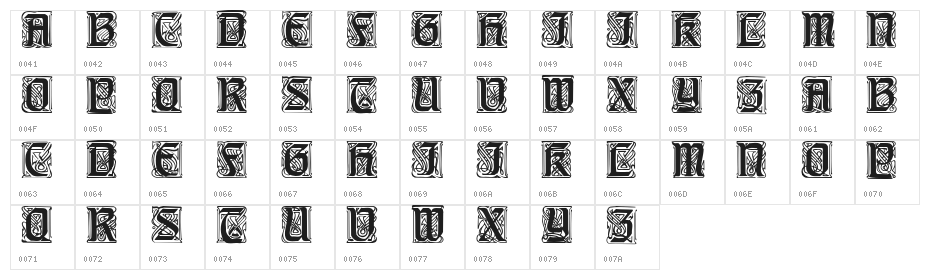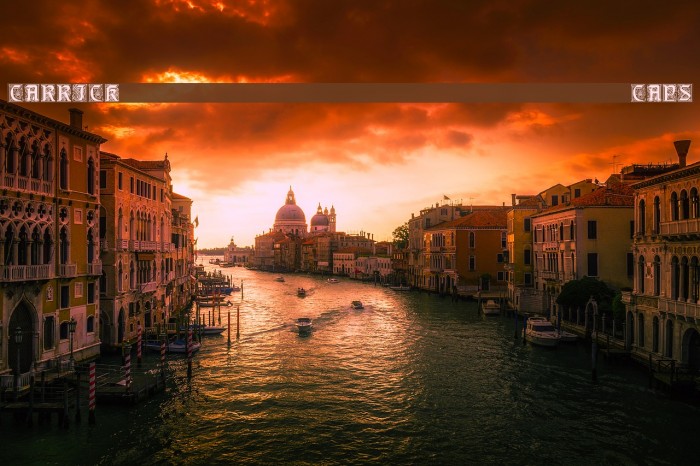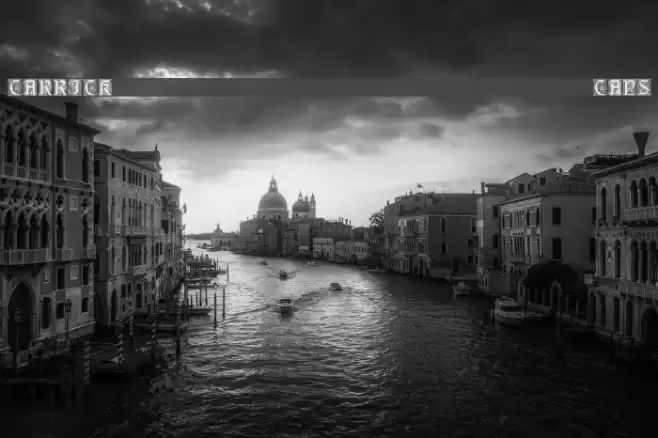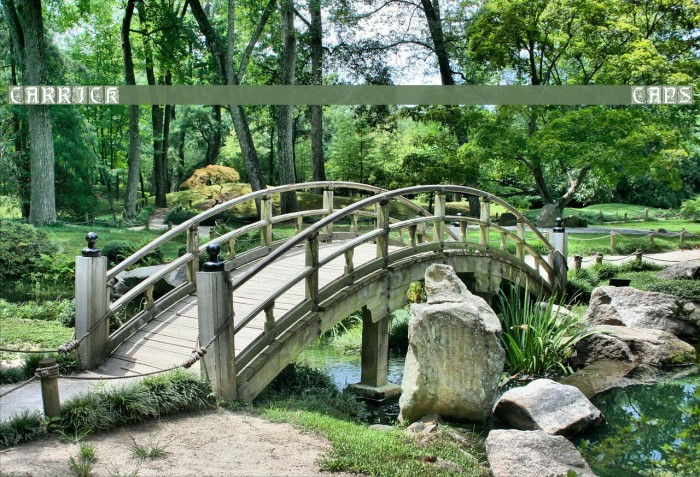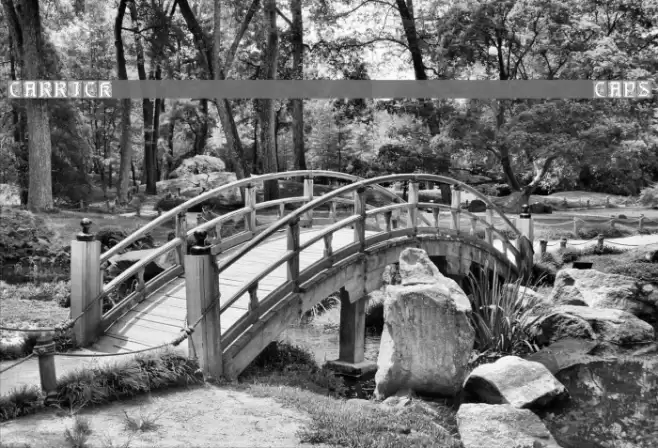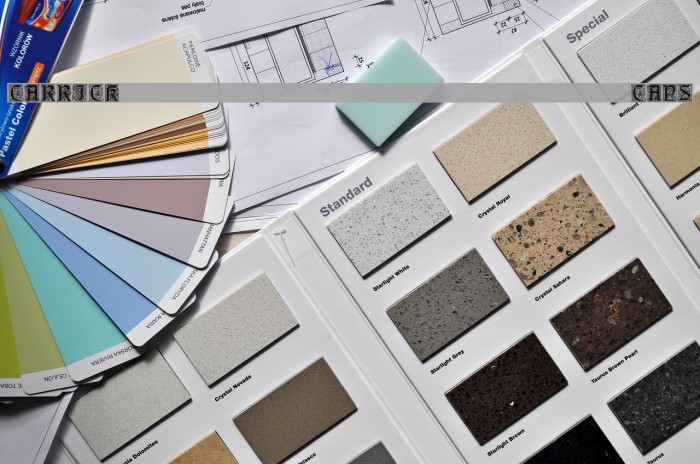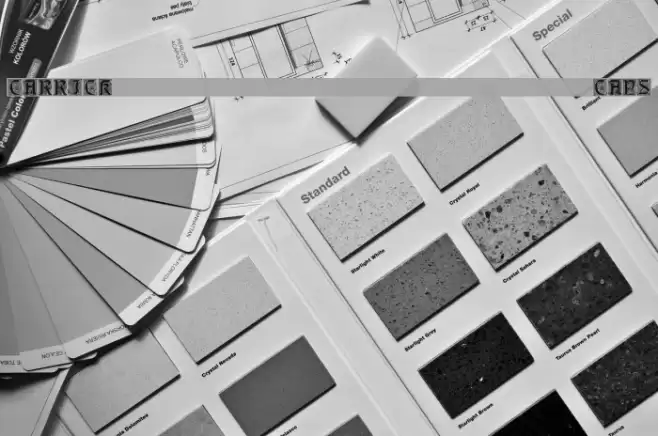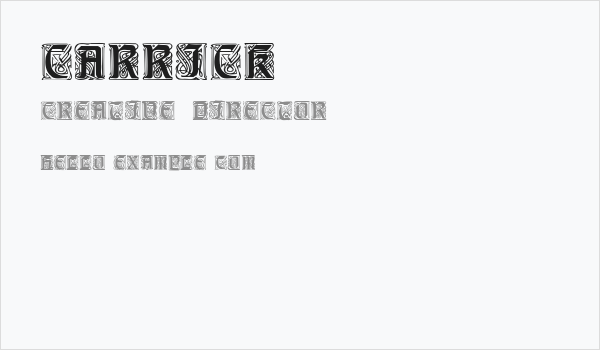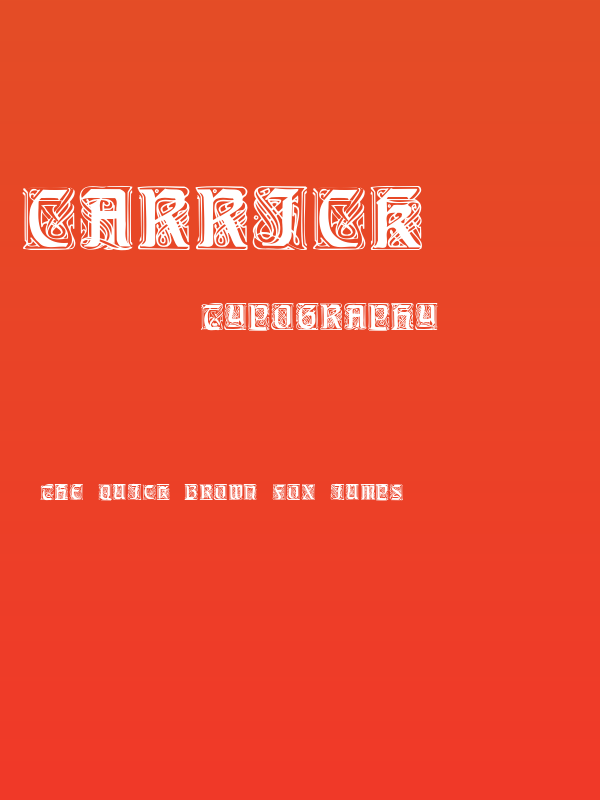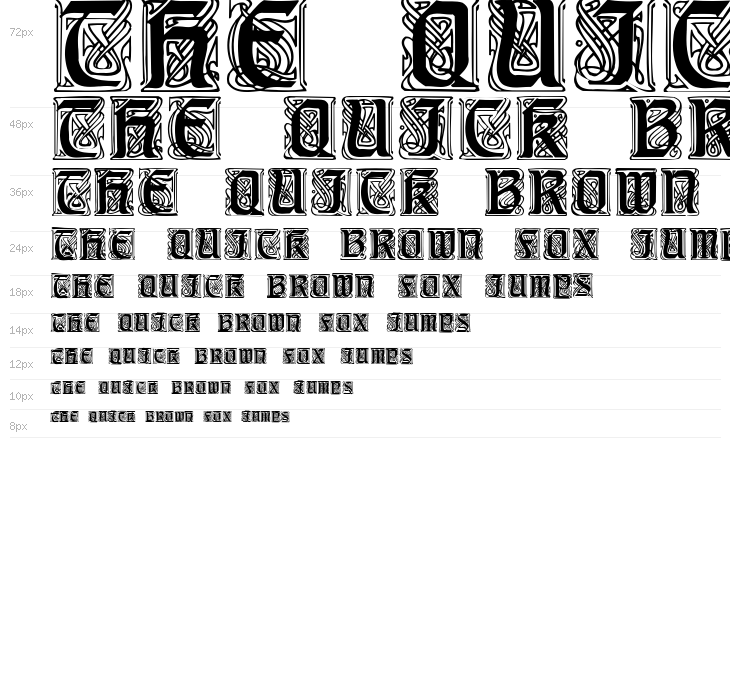
Carrick Caps Font
Carrick Caps Description
This font is a highly decorative and intricate typeface that features elaborate patterns and designs within each character. The letters are enclosed in a square-like frame, giving them a distinct and bold appearance. The intricate details within each letter resemble Celtic or medieval art, with swirling lines and interwoven patterns that create a sense of complexity and elegance. This font is primarily uppercase, with each character maintaining a consistent height and width, contributing to a uniform and structured look. The boldness of the characters is enhanced by the thick strokes and high contrast between the filled and empty spaces, making it stand out prominently.
| Proposed Projects | Ideal for projects requiring a medieval or Celtic aesthetic, such as themed event invitations, book covers, or logo designs for fantasy-related businesses. |